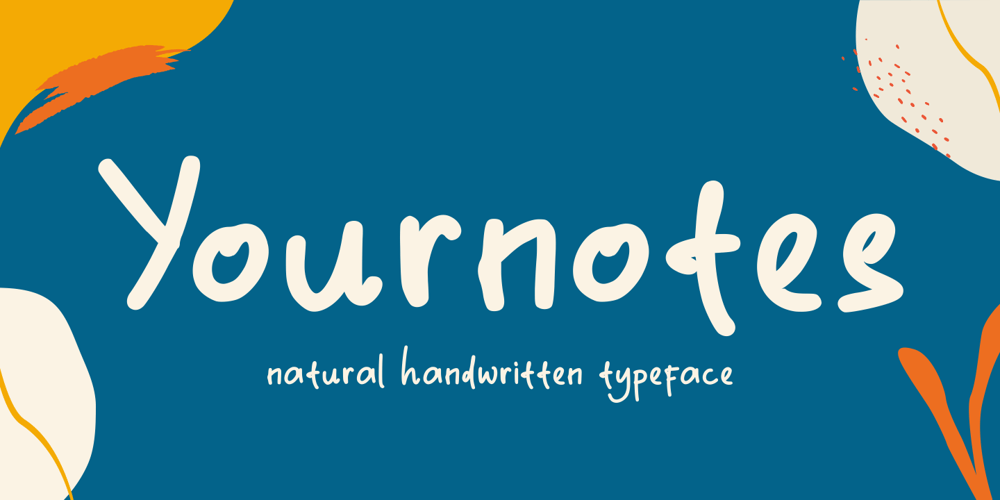
Yournotes Font Family was designed by Risman Ginarwan and published by Garisman Studio. Yournotes contains 4 styles and family package options. Yournotes typeface born from original and natural handwritten in the paper with boldpoint and pen; delivering a stylish typeface which is guaranteed to add naturality styles and taste appeal to your logo designs, brand imagery, quotes, product packaging, merchandise & social media posts.